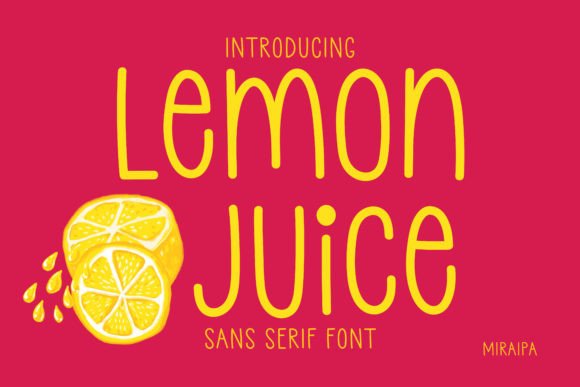
In a world of digital monotony, where fonts often blend together like raindrops in a storm, Lemon Juice Font emerges as a radiant sunbeam, illuminating your creative endeavors with its cheerful personality and heartwarming charm. This captivating sans serif font, meticulously crafted by the talented miraipa, is not just a collection of letters; it's an invitation to a world of boundless creativity, where your imagination can run wild and your designs can blossom into masterpieces.
Picture this: you're nestled in your cozy creative corner, surrounded by scattered sketches, vibrant paints, and the gentle hum of inspiration. As you embark on your next artistic adventure, Lemon Juice Font becomes your trusted companion, guiding you through a journey of self-expression and visual delight. With its playful curves and friendly demeanor, this font transforms ordinary words into heartfelt messages, heartfelt greetings, and captivating stories that leap off the page and straight into the hearts of your audience.
Imagine designing Christmas card labels that radiate warmth and festive cheer. Lemon Juice Font dances across the paper like a joyous melody, spreading holiday cheer with every stroke. Its whimsical charm captures the magic of the season, evoking images of twinkling lights, snow-covered landscapes, and the joyous laughter of loved ones gathered around the fireplace.
But Lemon Juice Font's versatility extends far beyond Christmas greetings. It's a font that adapts seamlessly to a myriad of creative projects, like a chameleon changing colors to match its surroundings. Whether you're designing wedding invitations, party decorations, or social media posts, Lemon Juice Font effortlessly complements your vision, adding a touch of playful elegance to every creation.
With Lemon Juice Font, your designs will blossom into vibrant expressions of your unique style and personality. It's a font that breathes life into your projects, transforming them from ordinary creations into extraordinary works of art. So, embrace the magic of Lemon Juice Font, let your creativity soar, and experience the joy of crafting designs that capture hearts and leave a lasting impression.